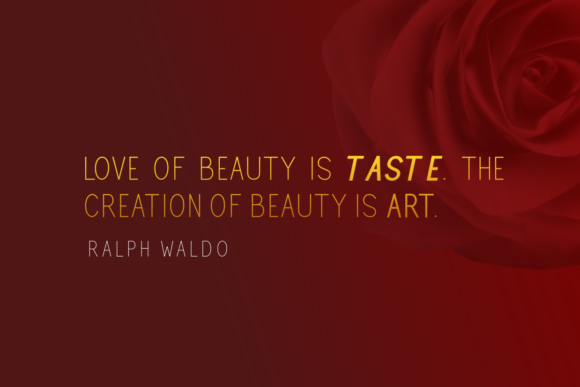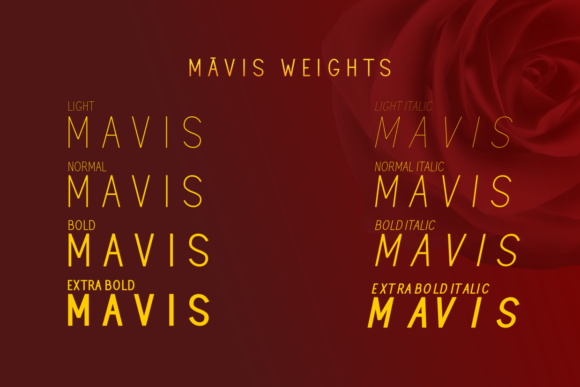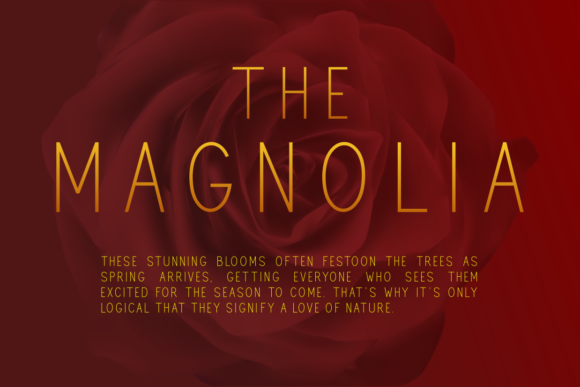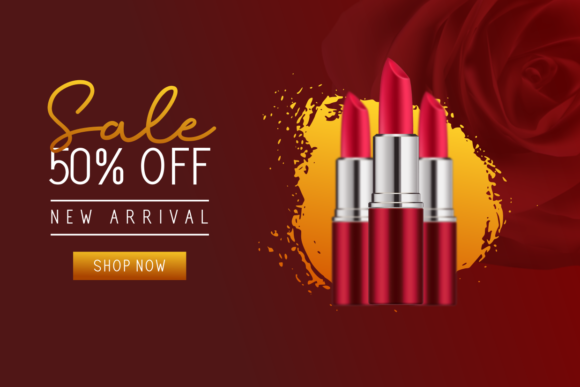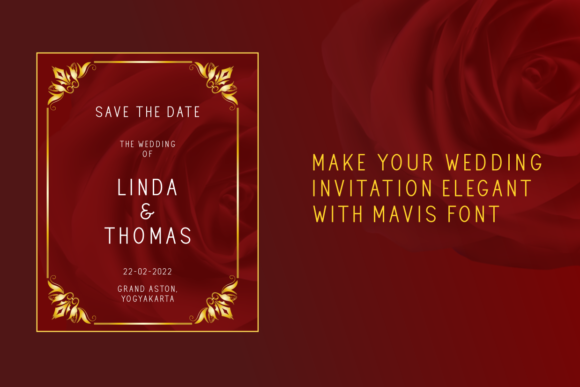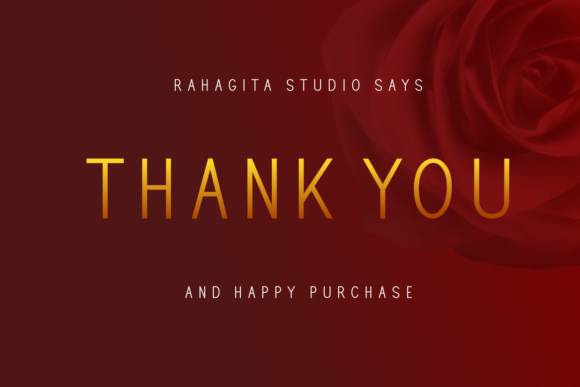
Introduction to Mavis Font
As designers, we’ve all been there – staring at a blank canvas, trying to bring our creative ideas to life. But sometimes, it’s the smallest details that can make all the difference. A well-chosen font can elevate your project from bland to grand, and that’s exactly where the Mavis Font comes in.
| 👤 Author | Rahagita Studio |
With its clean lines and minimal aesthetic, the Mavis Font is the perfect addition to any creative project. Whether you’re working on a logo, brochure, or website, this versatile font is sure to make your design stand out. And the best part? It’s available for free download, making it an invaluable design resource for anyone looking to take their creative work to the next level.
So why is the Mavis Font so valuable to designers? For one, its high-quality design ensures that your work looks professional and polished. Plus, its transparent background makes it easy to layer with other design elements, giving you complete control over the final product. With the Mavis Font on your side, the possibilities are endless.
Mavis Font
- High-quality, professional design ideal for creative projects and various design resources.
- Transparent background, making it easy to use in a variety of design scenarios and backgrounds.
- Features a unique, modern style that sets it apart from other fonts, perfect for making a statement in any design project.
- Designed to be highly legible, making it perfect for use in body text, headings, and other design elements.
Honest Review: Mavis Font
I recently stumbled upon the Mavis Font and I must say it’s been a game-changer for my creative project. As a designer, I’m always on the lookout for high-quality design resources that can elevate my work. The Mavis Font definitely fits the bill.
What works well about the Mavis Font is its versatility. It’s perfect for a variety of design projects, from logos and branding materials to digital products and graphics. The font is also available as a free download, making it an excellent resource for designers on a budget. Additionally, the font features a transparent background, which allows for seamless integration with other design elements.
- ✨ Versatile and suitable for various design applications
One limitation of the Mavis Font is that it may not be suitable for complex typography projects. However, for simple to moderate typography needs, the font performs admirably.
Overall, I’m thoroughly impressed with the Mavis Font. It’s a fantastic addition to any designer’s toolkit and a must-have for anyone working on creative projects. I highly recommend giving it a try.
Mavis Font
Tips for Getting the Most Out of Mavis Font
To get the most out of Mavis Font, use it in combination with other design elements, such as images or graphics, to create a visually appealing design. You can also experiment with different font sizes and styles to add emphasis to your text.
Mavis Font is a versatile design resource that can be used in a variety of creative projects, including logos, social media graphics, presentations, and reports. Its high-quality design and transparent background make it a great choice for any design project.
Alternatives to Mavis Font
Great Vibes Font is a high-quality, elegant script font perfect for creative projects requiring a sophisticated touch. It’s ideal for wedding invitations, branding materials, and other design elements that need a touch of class.
Compared to Mavis Font, Great Vibes Font has a more refined and polished appearance, making it suitable for formal events and high-end branding.
Does Mavis Font have a transparent background?
Yes, Mavis Font has a transparent background, making it ideal for use in designs with complex backgrounds or overlays. This feature allows you to create visually appealing and sophisticated designs with ease. Simply apply the font to your design and adjust the opacity to achieve the desired effect.